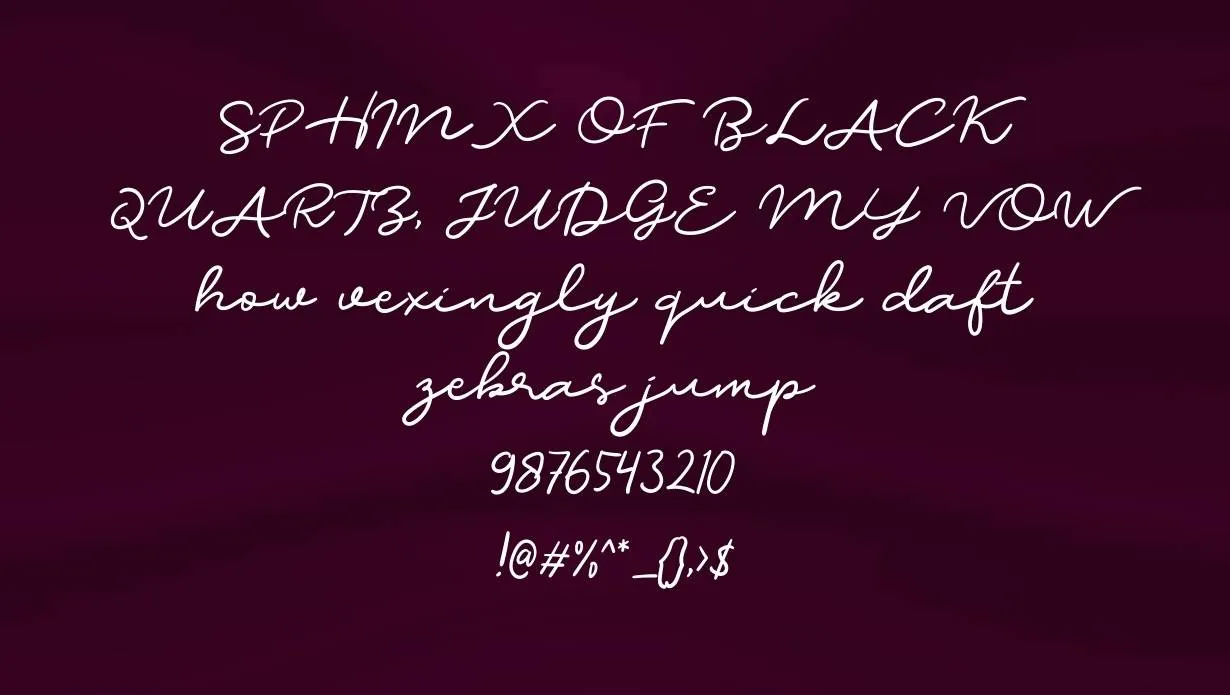
Dear Jane Font is a popular script font used in many branding and advertising campaigns. It was designed by Jennessa Herron in 1999 and has been used extensively in both print and digital media.
The font has a unique hand-drawn look that makes it stand out from other fonts. This font style is also helpful for making logos through Canva software. It is also very versatile, and able to be used for both serious and playful applications. You can give your designs a marvelous touch then try to pair prime time font and make your designs astonishing.
Who Used Dear Jane Font?
This font is also commonly used for wedding invitations and other special occasions. The Font is a beautiful, elegant script font with a touch of whimsy. It’s perfect for invitations, cards, and other formal or special occasion documents. The texturing of this typeface is great to work with the pairing of aquire font.
The Font has been used in many different contexts, including on movie posters, book covers, and even in tattoos. This font style is perfect for those who are looking for a custom, hand-drawn look. It can add personality and uniqueness to any project.
Dear Jane Font Family Appearance
| Name | Dear Jane Font |
| Designer | Jennessa Herron |
| Style | Script |
Is Dear Jane Font easy to read?
Yes, the Dear Jane Font is very easy to read. The letters are well-formed and the spacing between them is generous, making it easy to read even at small sizes.
What is Dear Jane Font used for?
The Font is most commonly used for wedding invitations and other special occasions. It is also popular for use in branding and logos, as well as in movie posters, book covers, and tattoos.